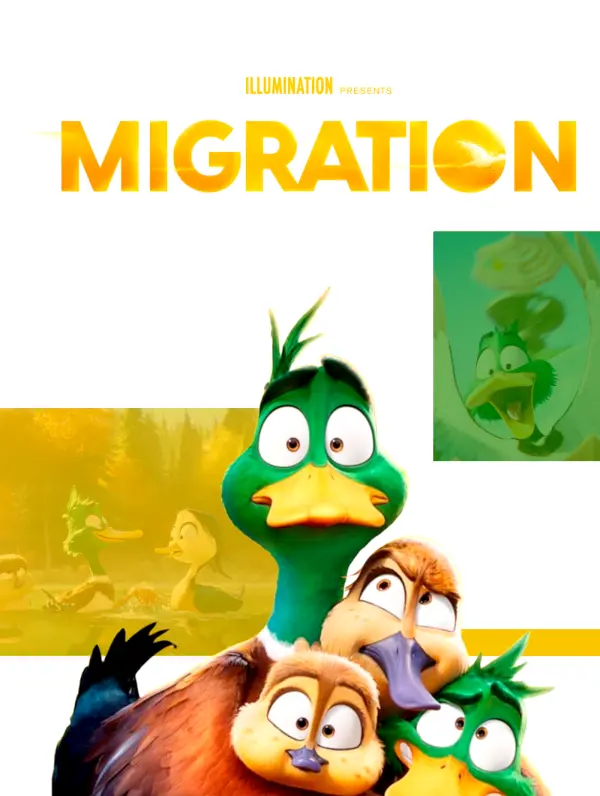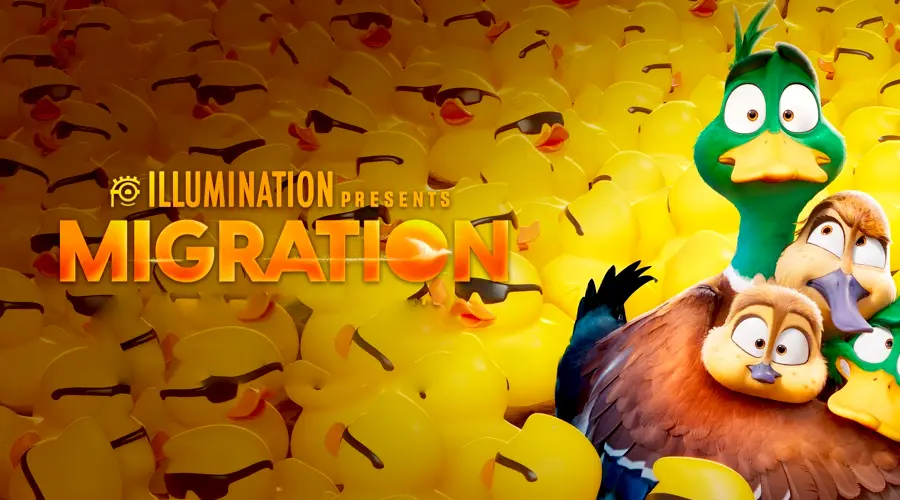
The film “Migration” is a 2023 American animated adventure comedy film produced by Illumination and distributed by Universal Pictures. The font used in the movie poster title is visually similar to the Visby CF Heavy font, which is a version of the Visby CF Sans Serif Font.
The Visby CF Sans Serif Font is a geometric font family inspired by the stark beauty of the Arctic, designed to carry an expressive and engaging character, making it suitable for casual and fun-themed designs. It is a sans-serif font with friendly and charismatic lowercase and sophisticated and authoritative uppercase.